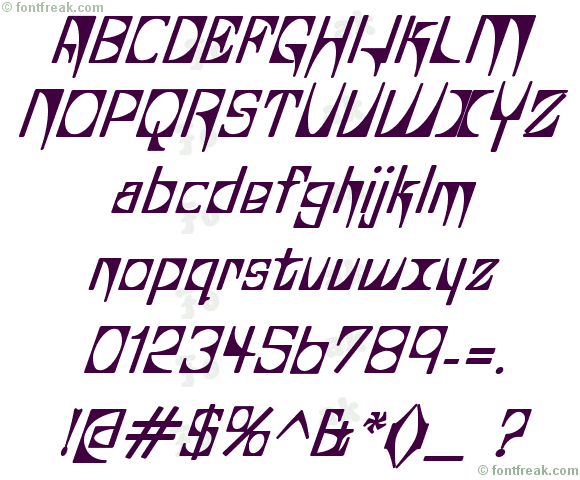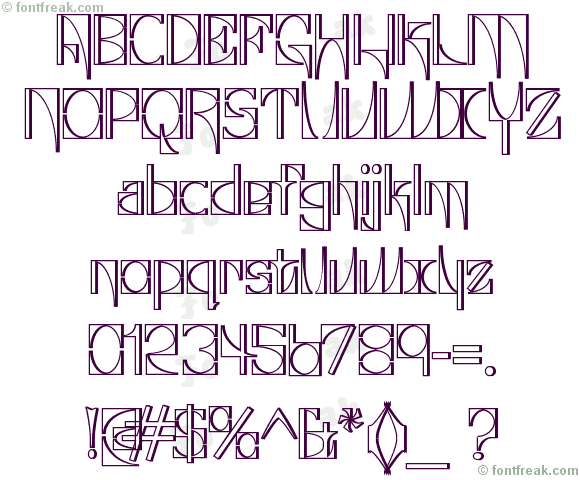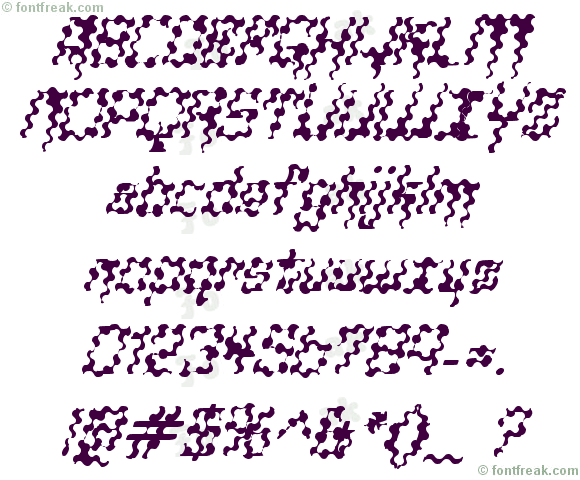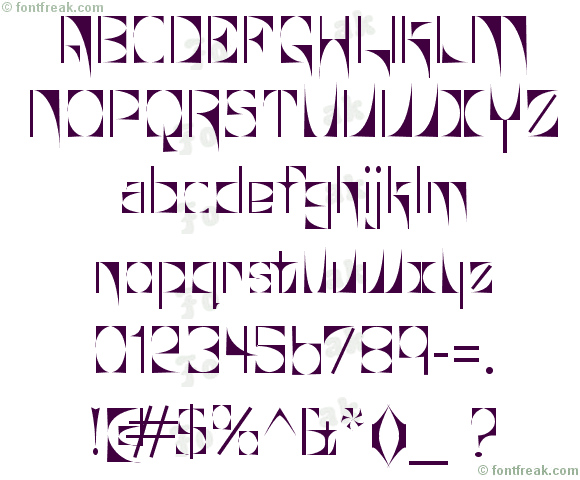
Glaukous
Glaukous - Paukous
Glaukous - Industrious
Glaukous - Aublikus
Glaukous - Viscous
Glaukous, designed by Apostrophic Labs, is a distinctive display font that captures attention with its unique blend of modern elegance and industrial flair. This freeware typeface features a bold yet refined aesthetic, making it ideal for a variety of creative projects. Its visual characteristics include a balanced stroke weight and a moderate contrast that enhances legibility while adding a touch of sophistication. The spacing is thoughtfully designed to ensure readability, while subtle decorative elements give it a contemporary edge, perfect for striking graphic applications.
This font shines in several specific use cases. It is particularly well-suited for wedding invitations, where its elegant yet sturdy presence can convey both formality and creativity. Movie posters benefit from Glaukous's boldness, making titles stand out against dynamic visuals. Additionally, restaurant menus can leverage this typeface to create a modern, inviting atmosphere, enticing diners with its appealing look. Graphic designers and content creators will find it a versatile choice for branding projects, where it can help establish a strong identity. Small business owners will appreciate its ability to convey professionalism while still being approachable.
What truly sets Glaukous apart is its ability to merge artistic expression with functionality. Its eye-catching design and versatility make it a standout choice for anyone looking to make a memorable impact in their visual communications. Whether used in print or digital media, Glaukous is sure to leave a lasting impression.